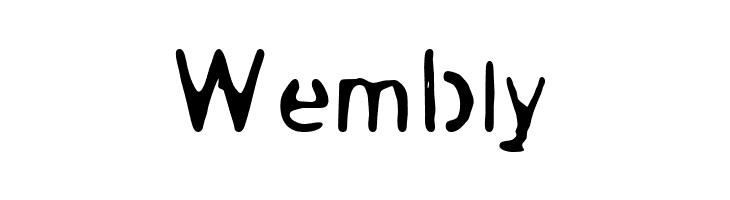
Bekerja Sama Font
- Font: Bekerja Sama
( Fonts by Lecter Johnson - doubletwostudios.tumblr.com )
A bold, distressed font with a gritty, urban aesthetic.